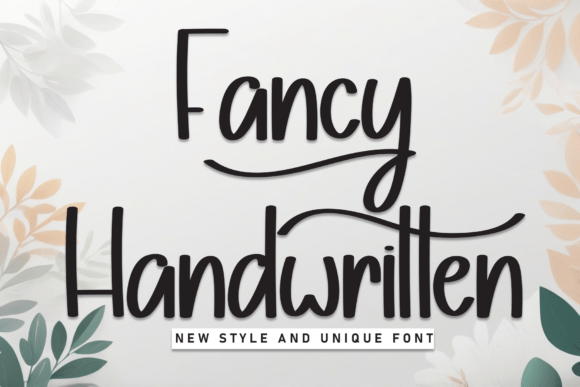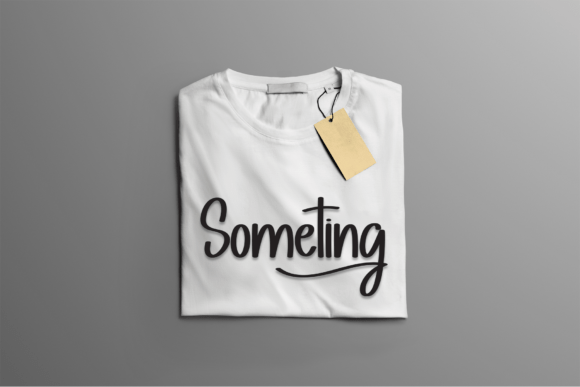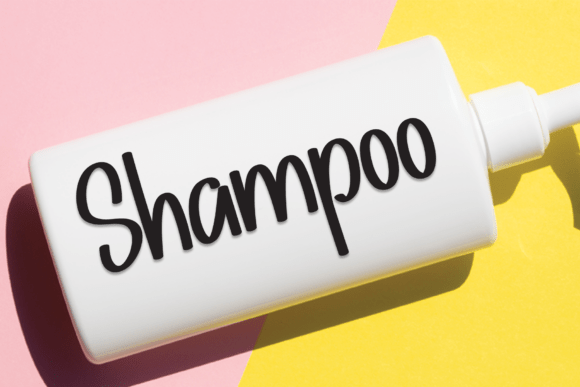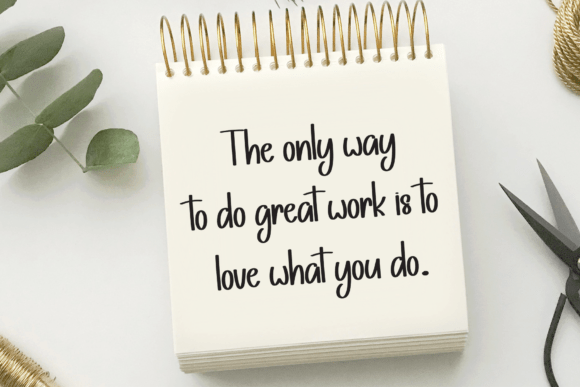
Fancy Handwritten Font
About the Fancy Handwritten Font
The Fancy Handwritten Font offers a perfect balance of form and function for your design needs. Fancy Handwritten is a chic and stylish script font that blends clean, contemporary lettering with whimsical flourishes. Ideal for branding, wedding invites, lifestyle blog headers, and social media content, it offers a handwritten look that feels personal yet polished. The sweeping swashes add an elegant, feminine touch to any project.
Its elegant yet playful personality makes it perfect for projects requiring a touch of sophistication and charm. Consider it for logos, short headlines, packaging for beauty or lifestyle products, and even select elements within website designs (such as hero section text). Avoid using it for large blocks of body text or UI elements; its intricacy hinders readability in such contexts.
Pairings that complement its style include clean sans-serif fonts like Montserrat or Open Sans for a contemporary contrast, or a classic serif like Garamond or Playfair Display for a more traditional feel. A simple geometric sans-serif can also work well, providing a balanced modern aesthetic.
For a more whimsical approach, consider pairing it with a playful handwritten font that complements rather than competes, or a subtle script for layering effects. Avoid pairing it with overly bold or heavy fonts which would overshadow its delicate character.
Fancy Handwritten Font Example